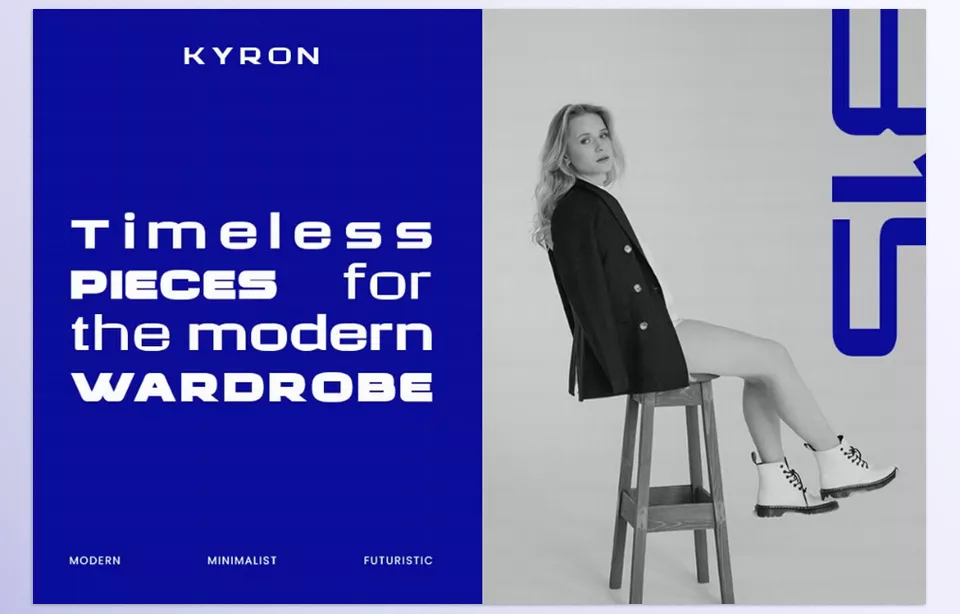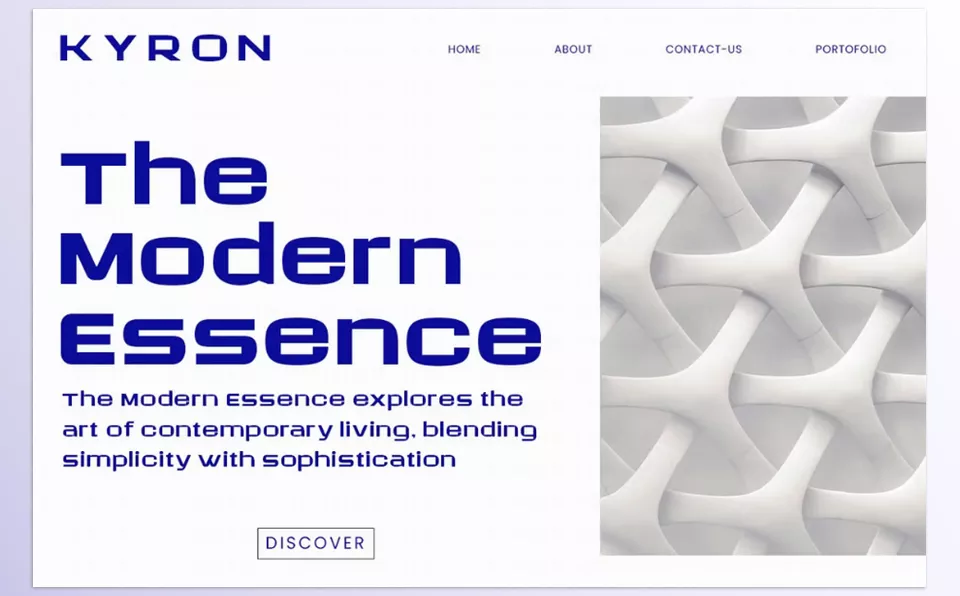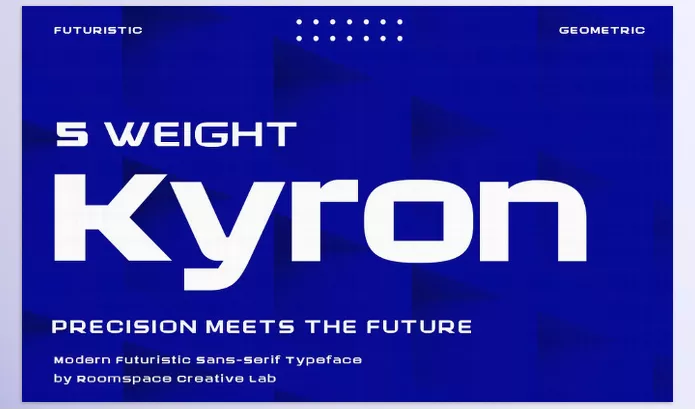
Roomspace’s Kyron Futuristic Modern Font has a sleek design and five weights, striving for versatility. The font is perfect for branding, websites, and print. From Regular to Extra-Bold, flexibility is everything.
• 5 Different Distinct Weights: Regular to ExtraBold weight selection enables perfect combinations of readability and strength.
• Clear and Readable: Designed carefully to be legible in all sizes, the letter forms ensure the typefaces are clear on all media.
• It adds a touch of sophistication to projects with sleek, refined, modern looks.
Image 1: Its clean lines and balanced structure make Kyron perfect for various uses.
Kyron Futuristic Modern Font - Its clean lines and balanced structure make Kyron perfect for a wide range of uses.
Image 2: Weights from Regular to Extra-Bold
Kyron Futuristic Modern Font - Weights from Regular to Extra Bold